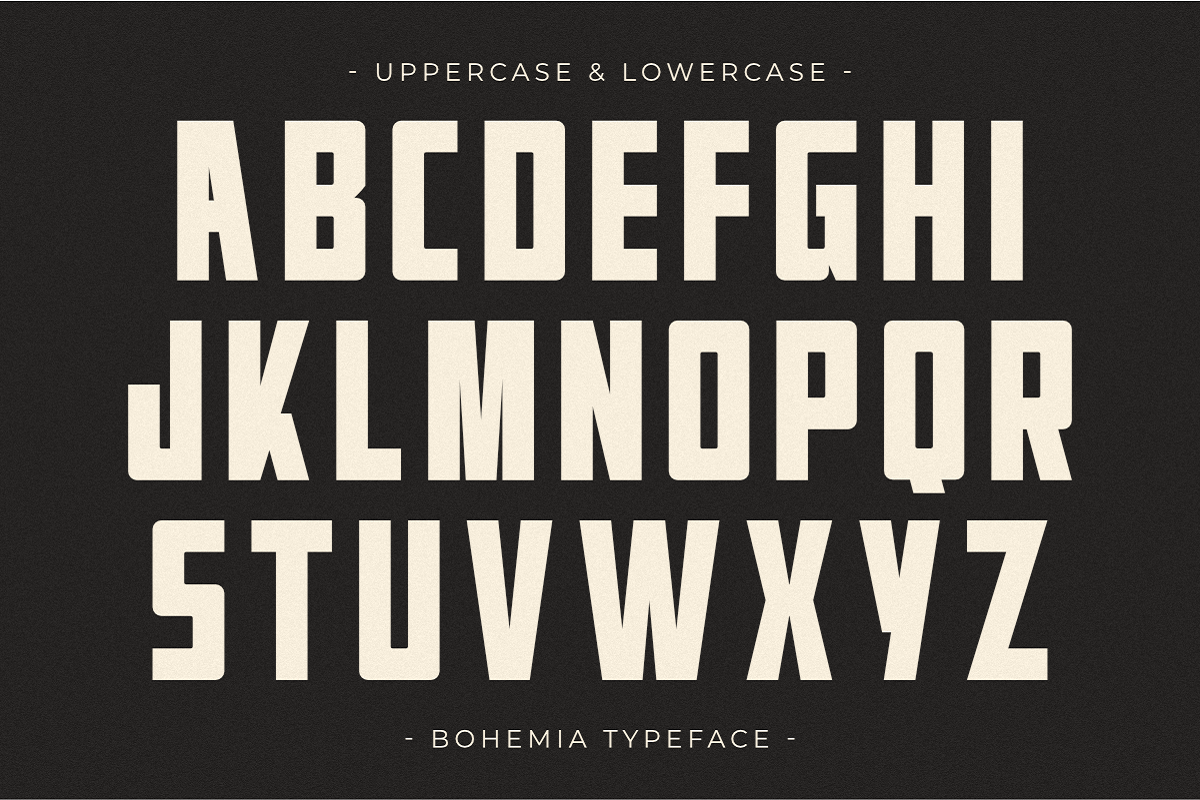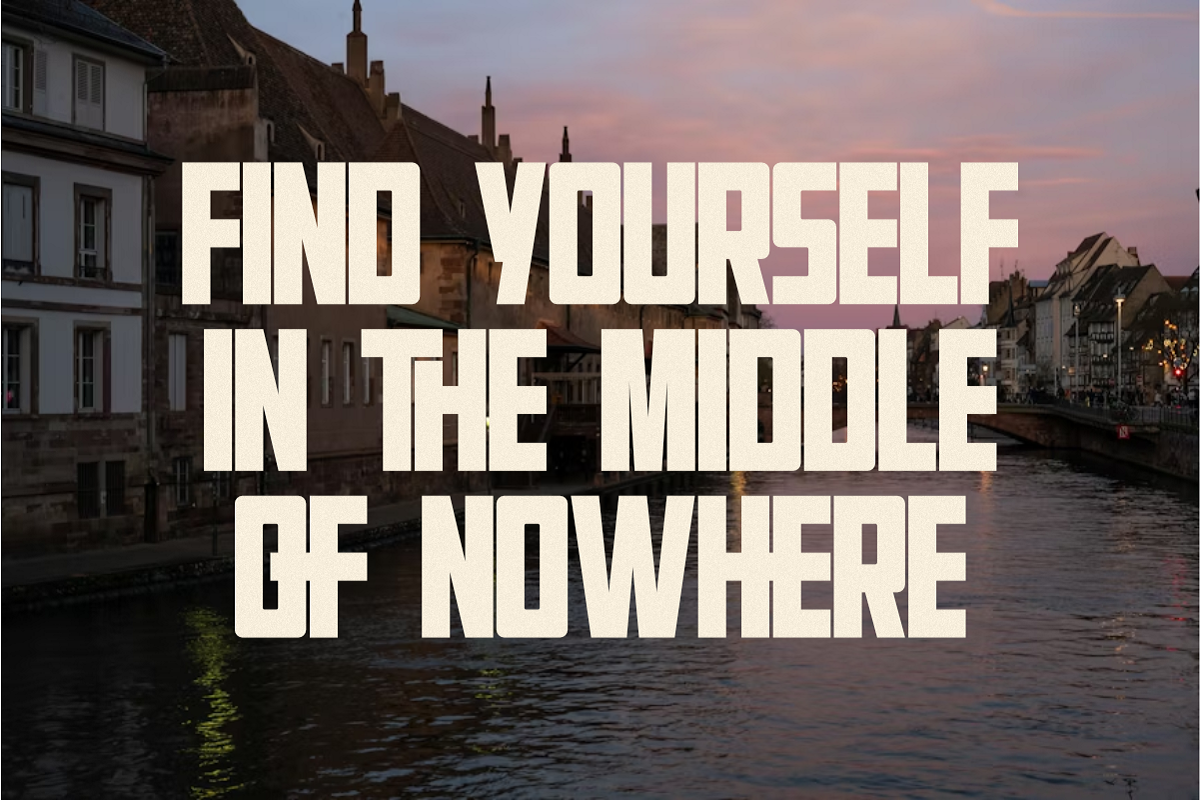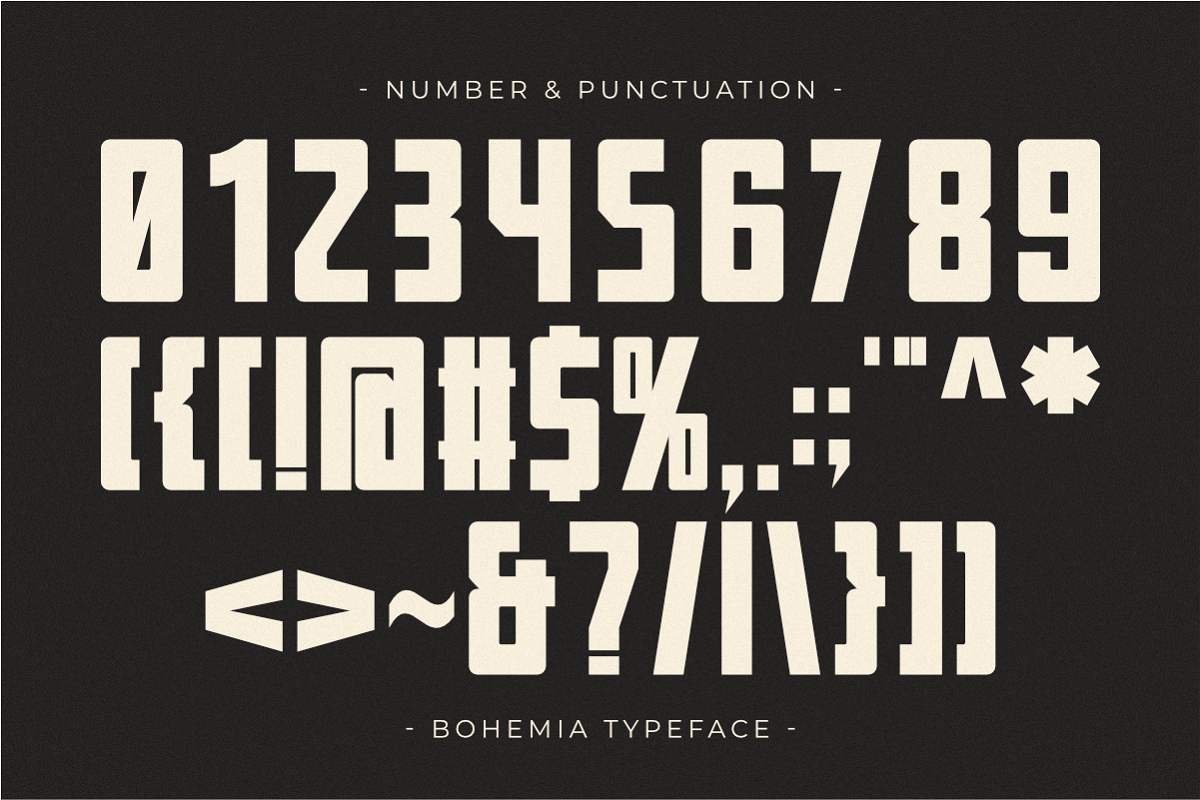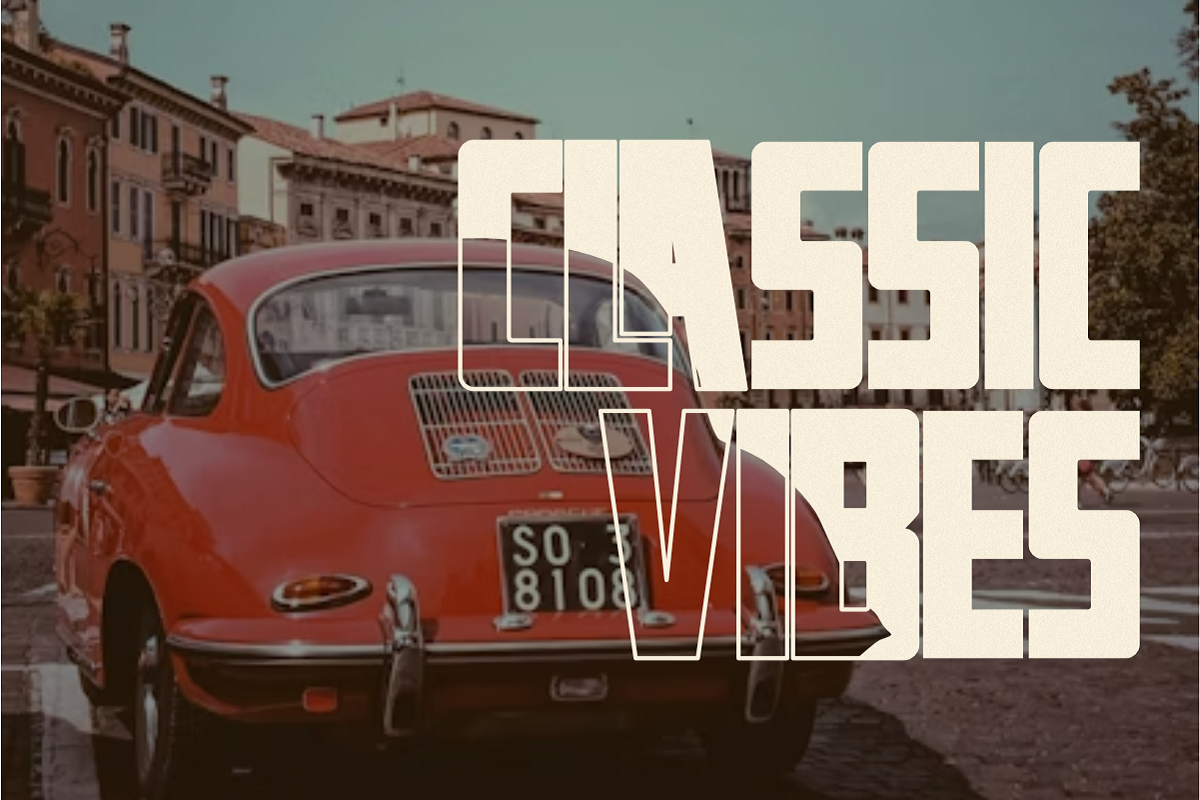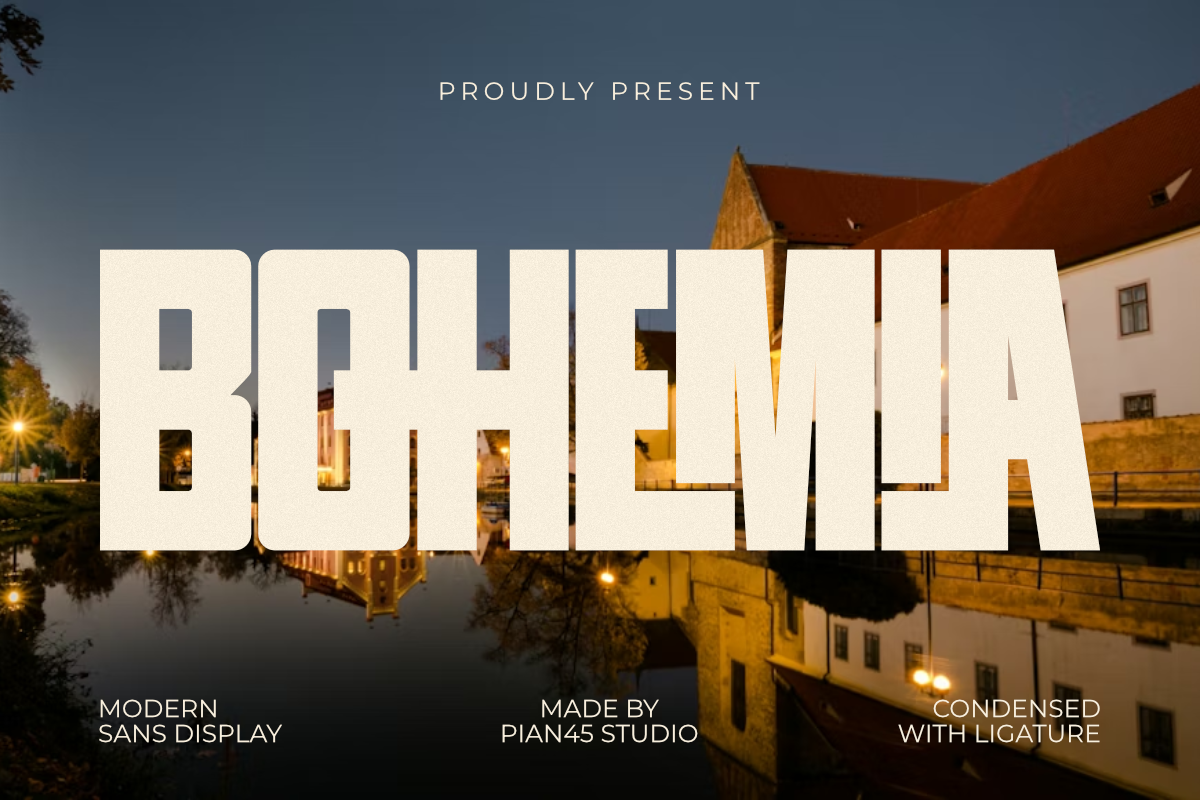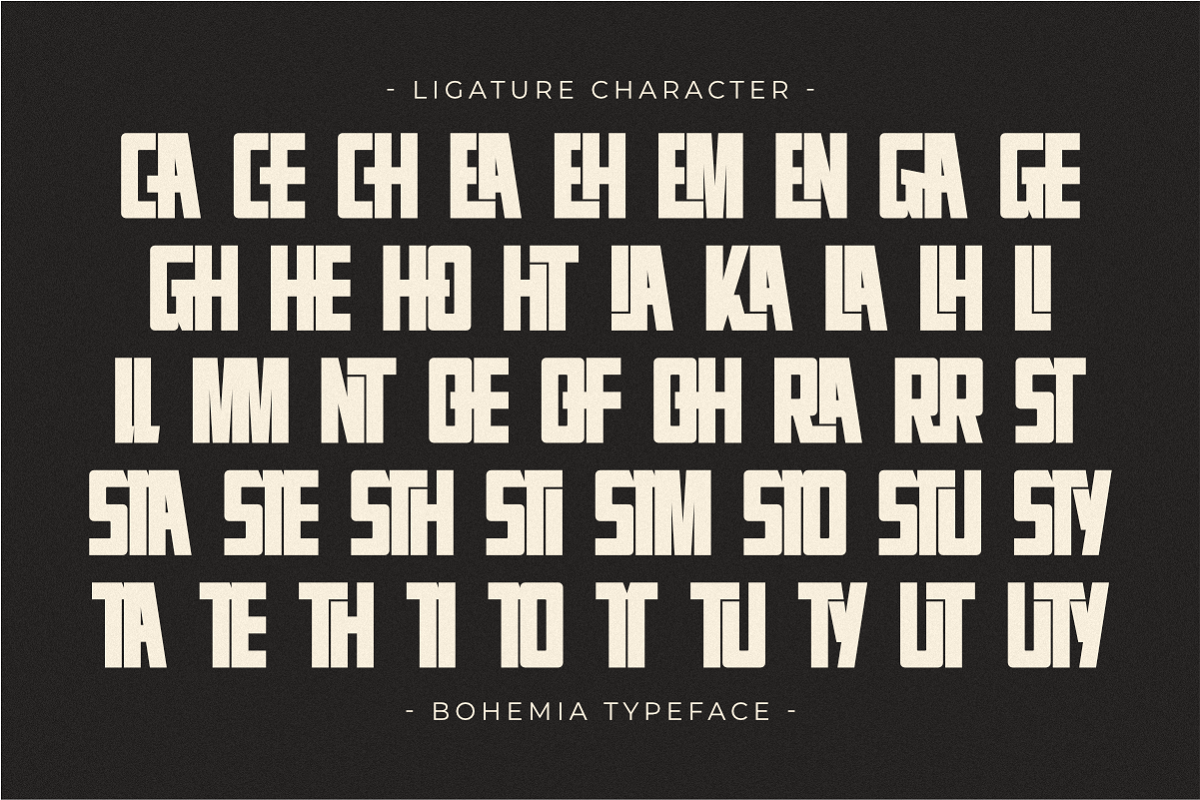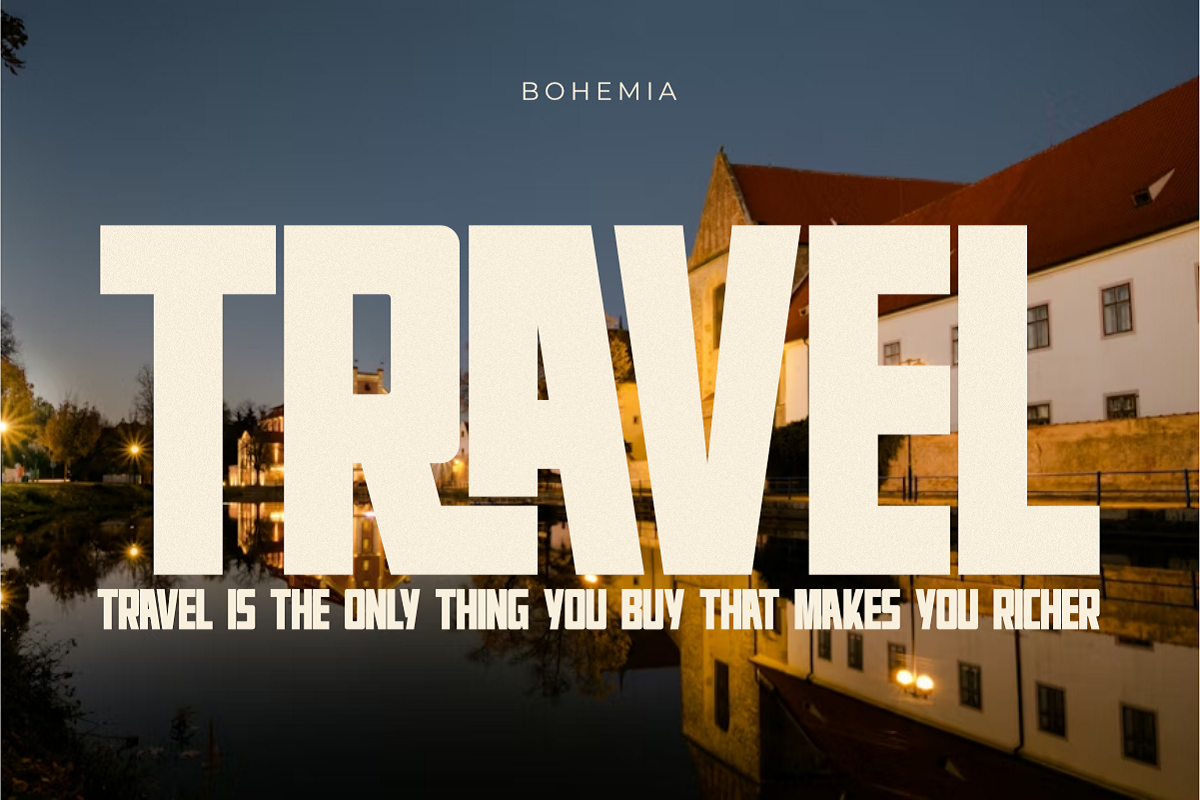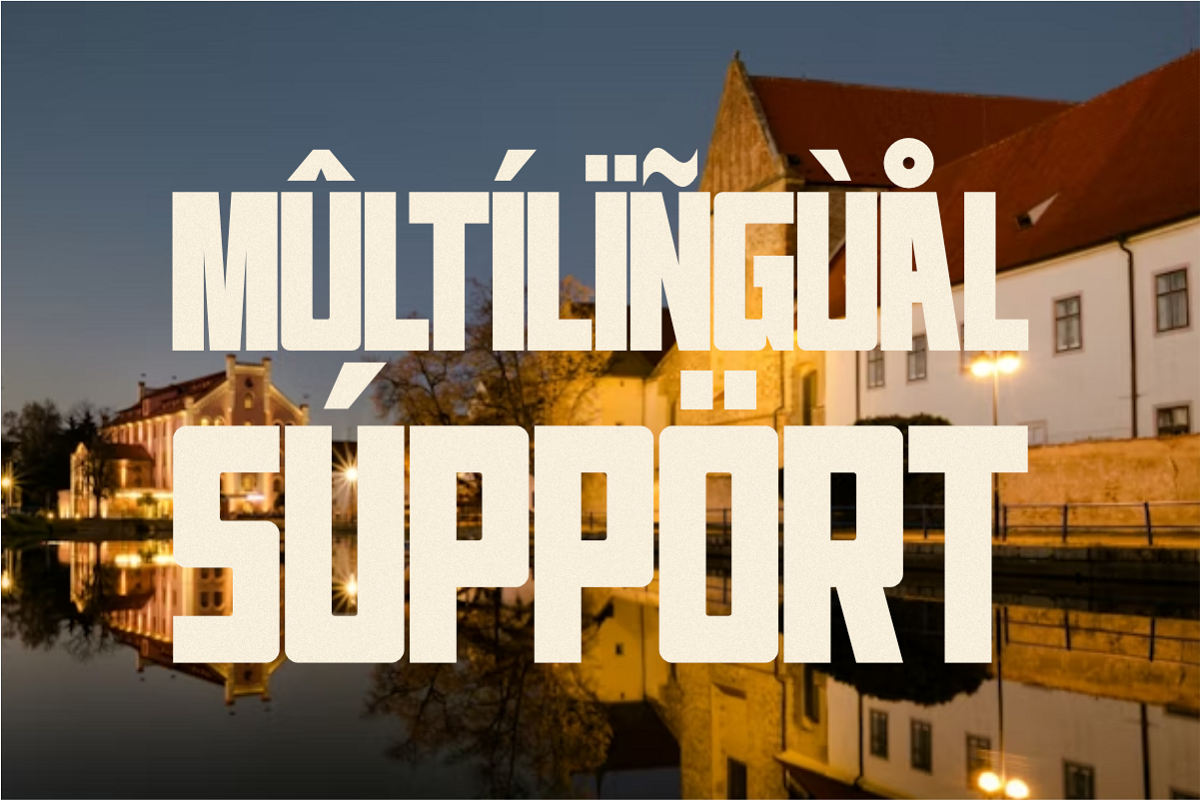
Bohemia - Modern Sans Display Font
Bohemia is a sophisticated and high-impact Modern Sans Display font that blends a bold, condensed structure with elegant, artistic ligatures. This typeface is meticulously designed to elevate luxury branding, high-end editorial layouts, and contemporary logos. Its tall, clean lines and unique character connections provide a professional yet creative aesthetic, making it the perfect choice for travel posters, fashion magazines, urban-style apparel, and digital marketing headlines that require a touch of modern European flair.